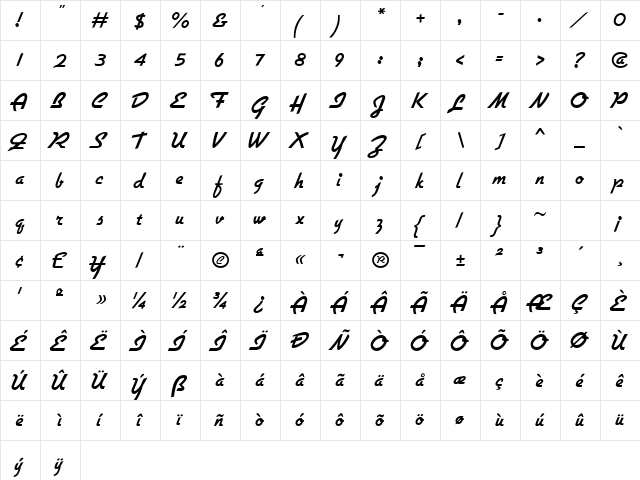
Gillies Normal
Design Context for Gillies Typeface
Gillies is a composed and adaptable typeface that performs quietly and consistently across a wide range of design contexts.